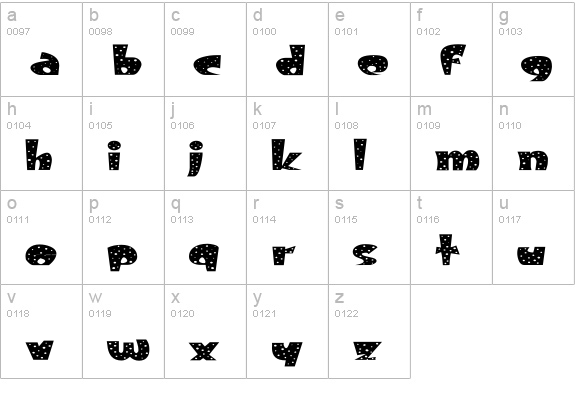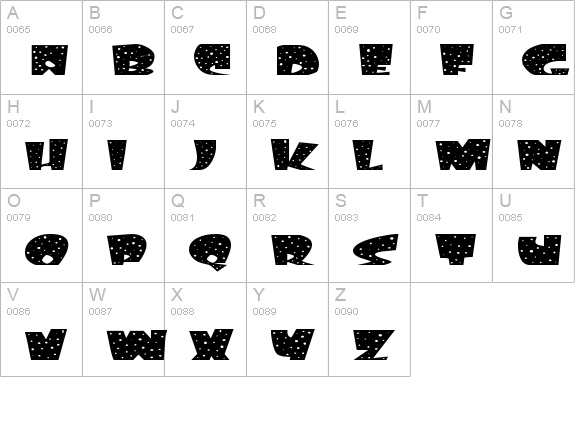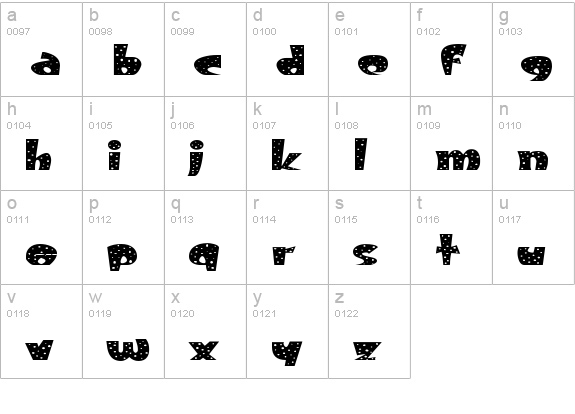
FreckleExtended Font Details
FreckleExtended is a charming and versatile font that adds a touch of playfulness to any design. With its quirky freckled appearance, this font is perfect for projects that call for a fun and unique aesthetic. FreckleExtended is freely available to download at FontsMarket.com, making it easily accessible for designers and creatives looking to add a touch of whimsy to their work. Whether you're creating a logo, poster, or website, FreckleExtended is sure to make your design stand out with its distinctive style. Add a sprinkle of personality to your projects with FreckleExtended today!